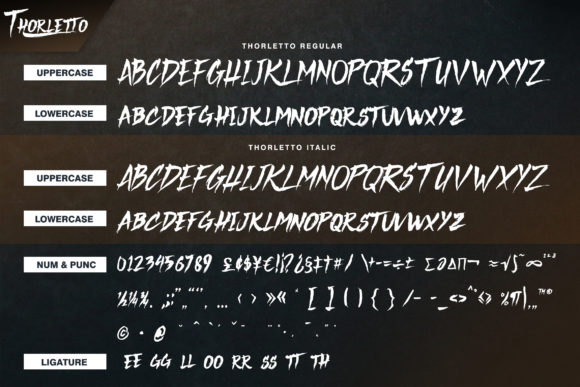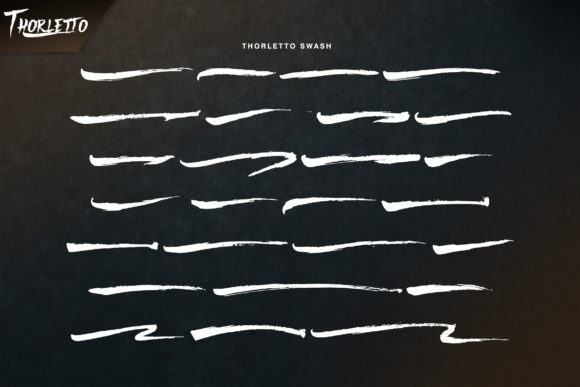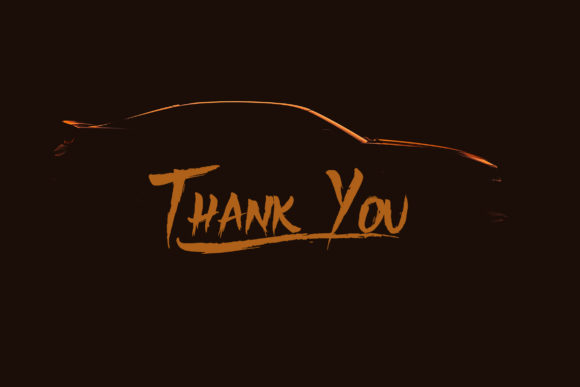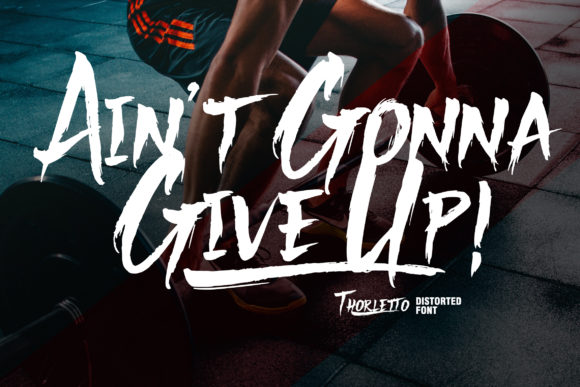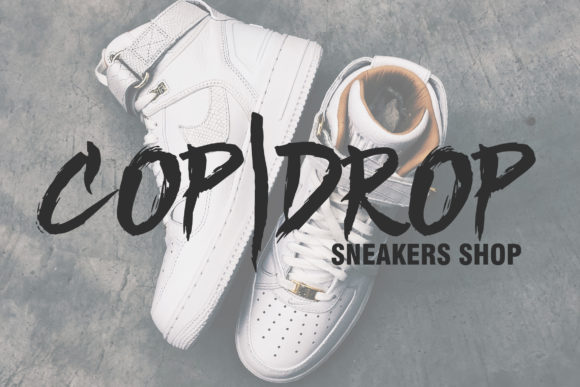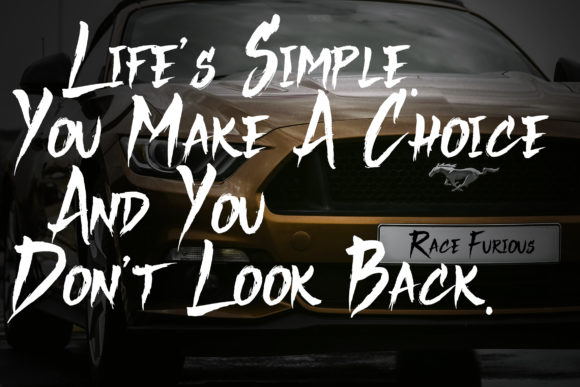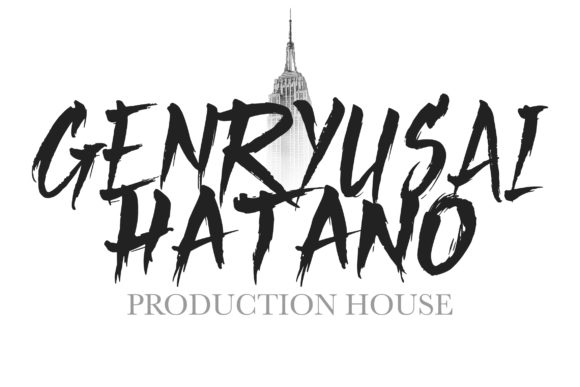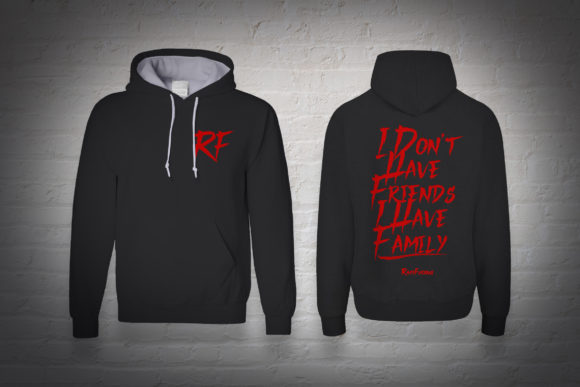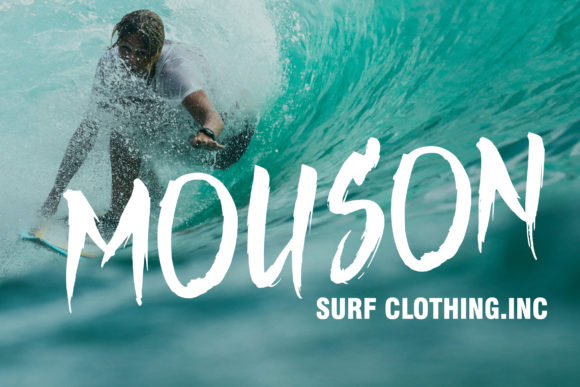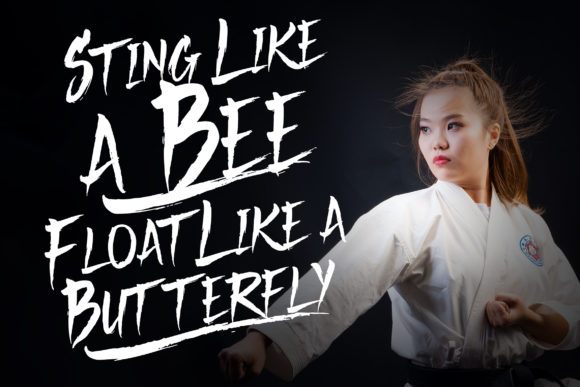
Thorletto Font
About Thorletto Font
Thorletto is a bold and modern handwritten font with an urban feel. It will add a rough edge to any design project.